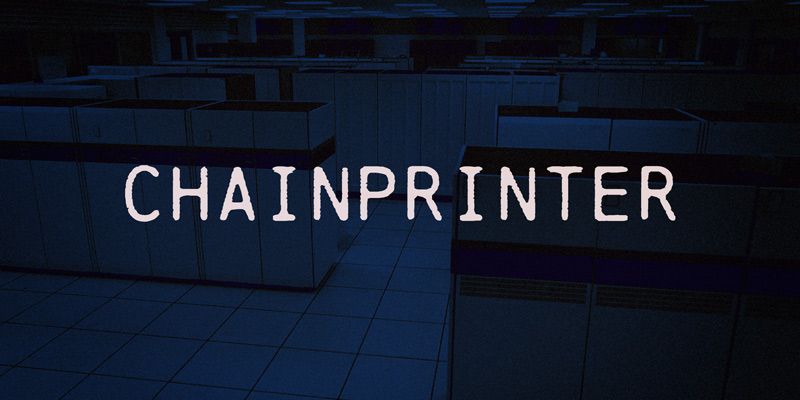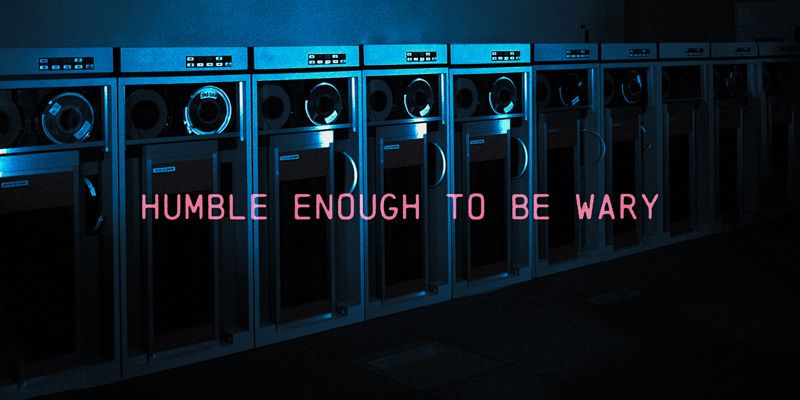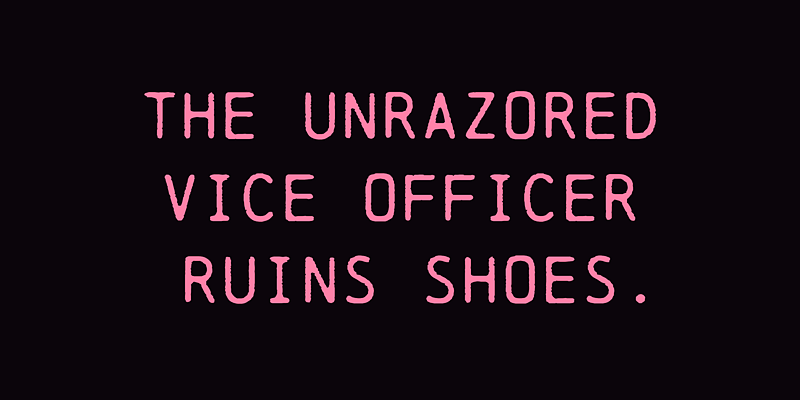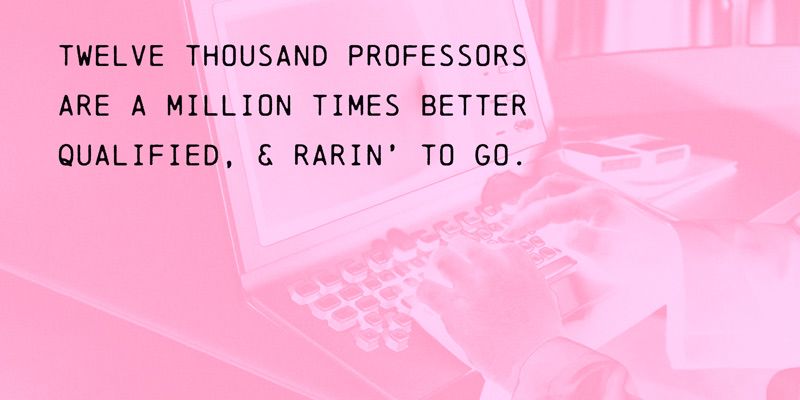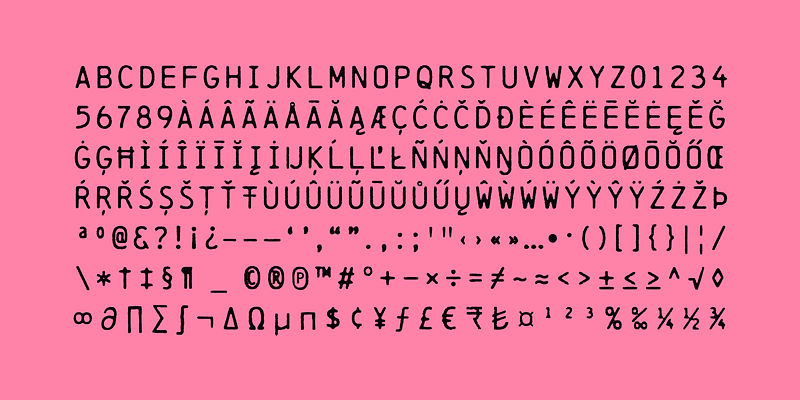
Chainprinter evokes the high-speed line printers that once turned computer data into stacks of paper. Its narrow, monospaced capitals carry the softened edges and uneven impact of characters transferred through an ink ribbon. The texture belongs to the letters themselves, giving dates, serial numbers, bylines, and short captions a mechanical past without a separate distress effect. It can serve as the quieter informational layer beneath a rougher headline, particularly in workwear, denim, archival music packaging, or industrial graphics. It also suits fictional records and production design: evidence labels, personnel files, equipment inventories, and institutional documents that should seem generated by a system rather than typed at one desk.